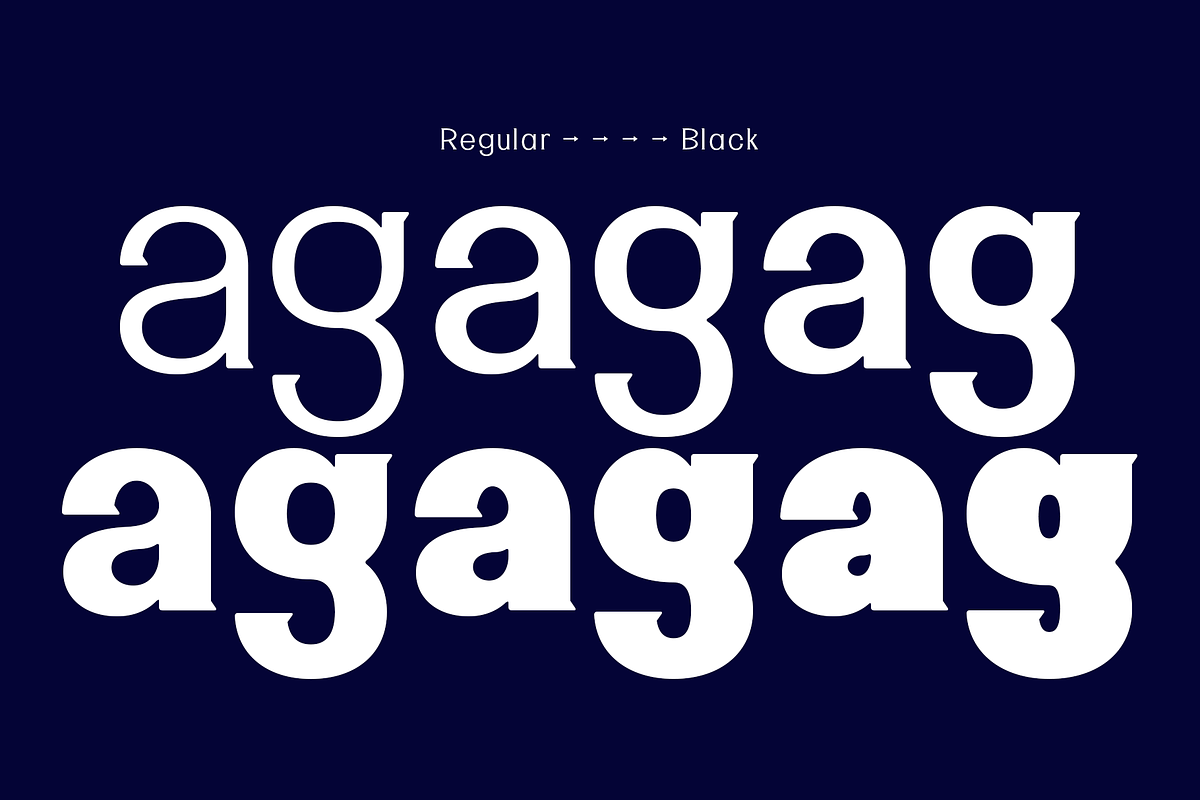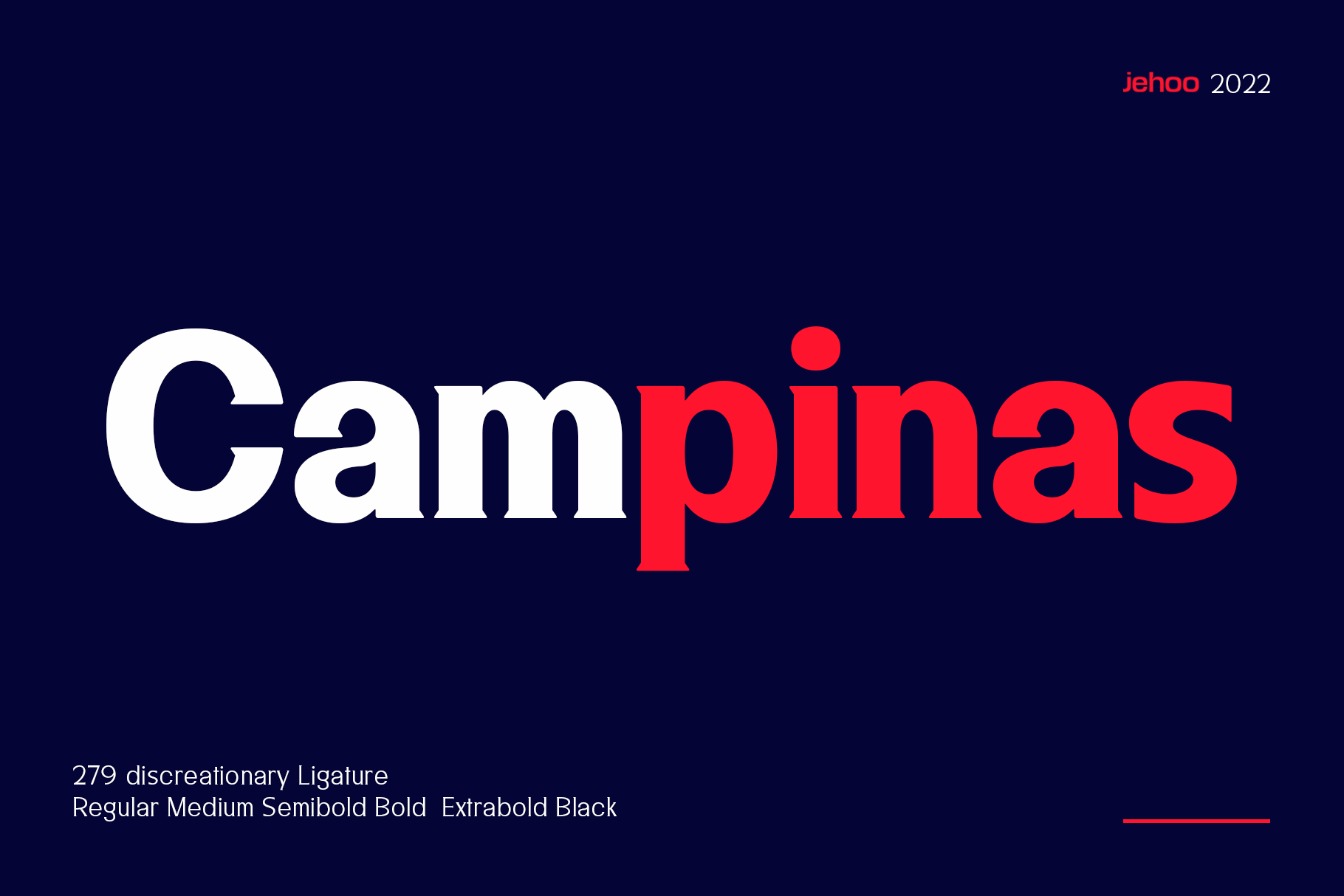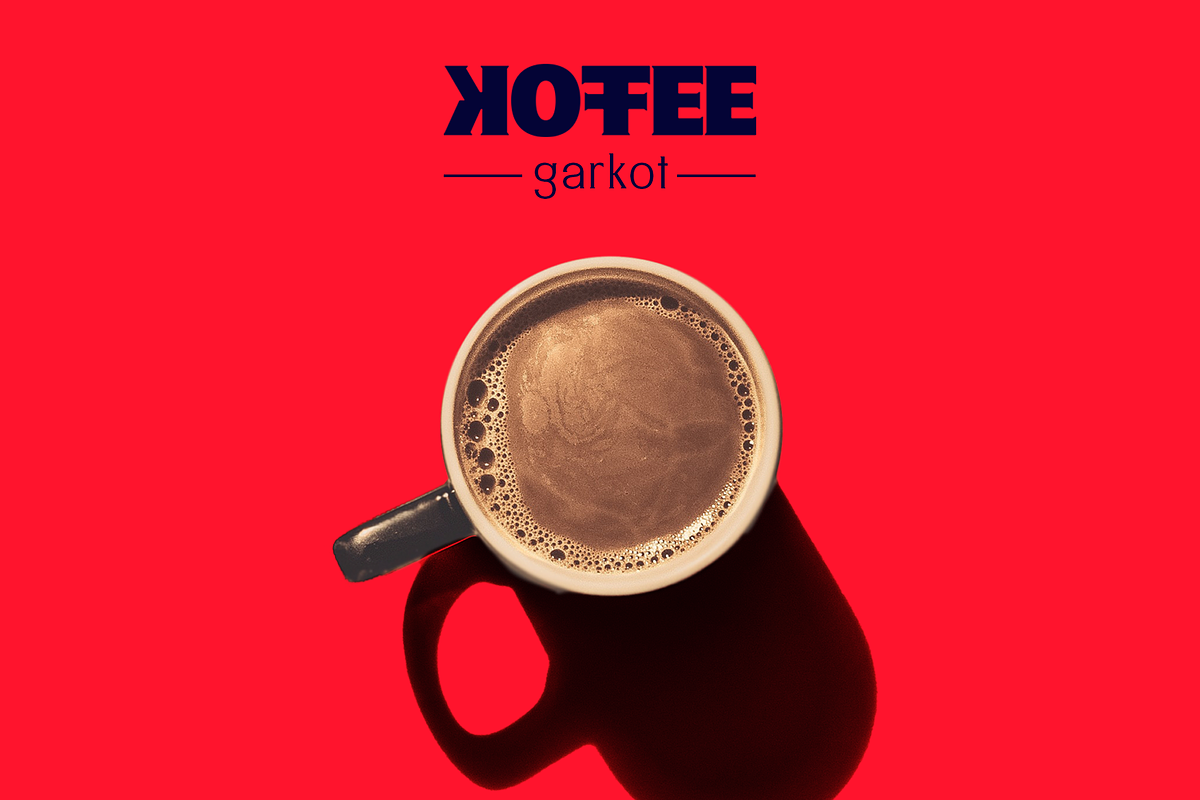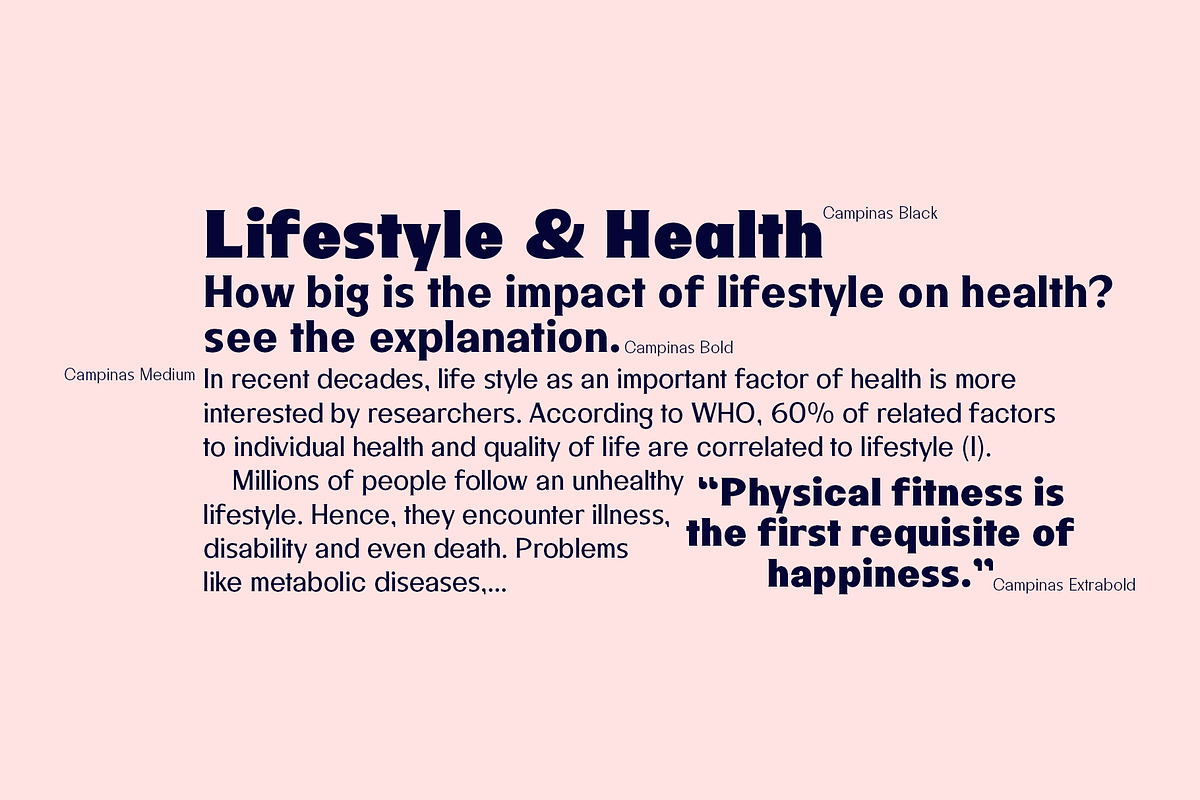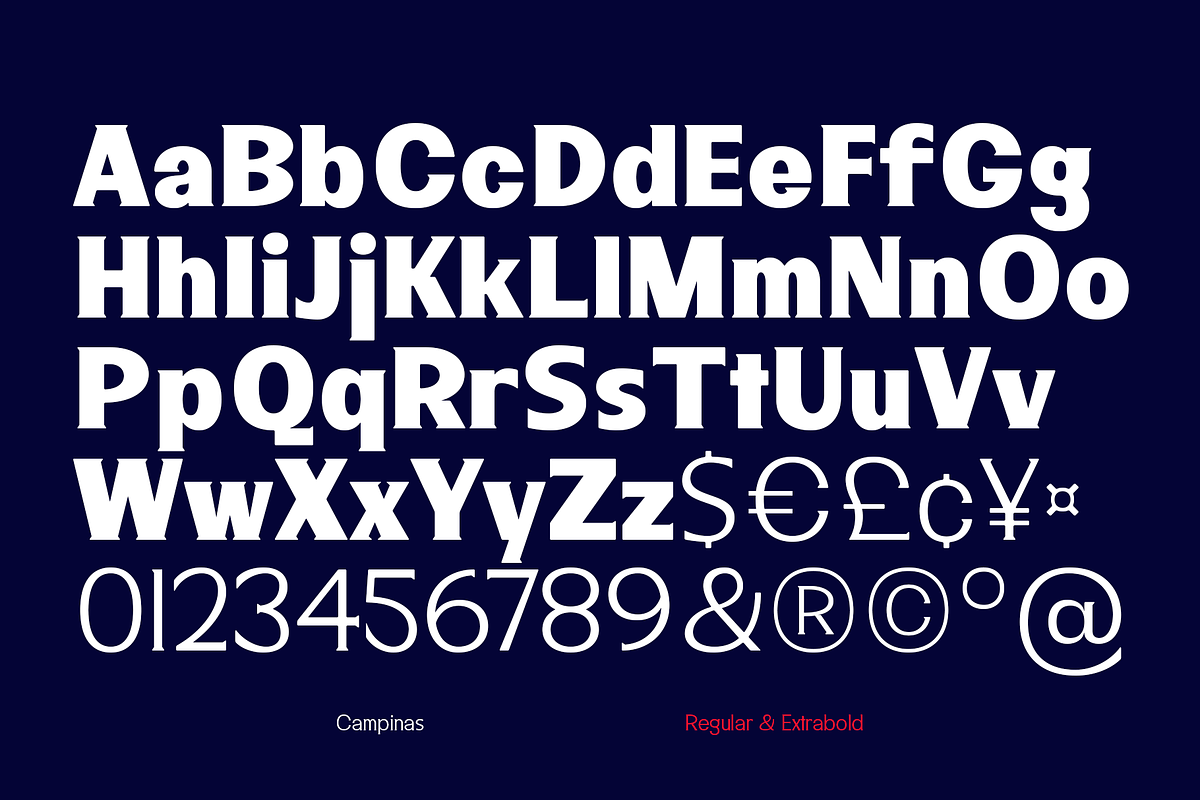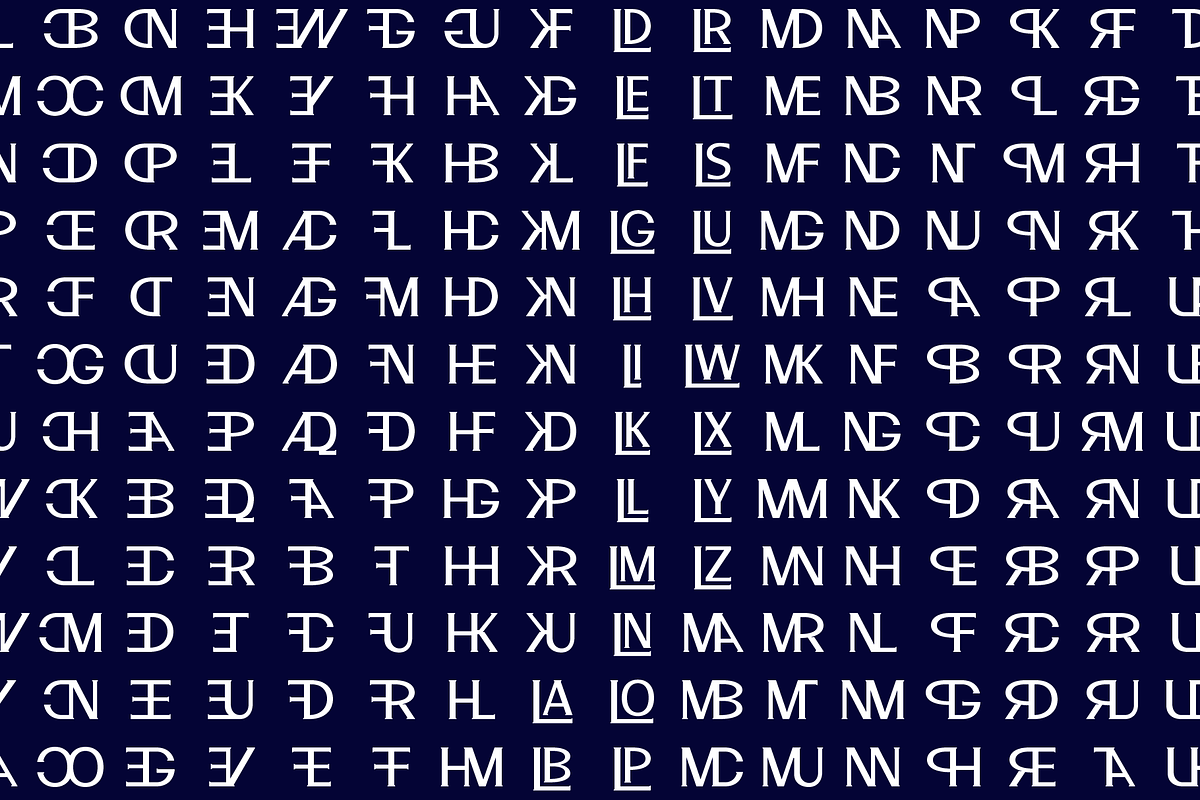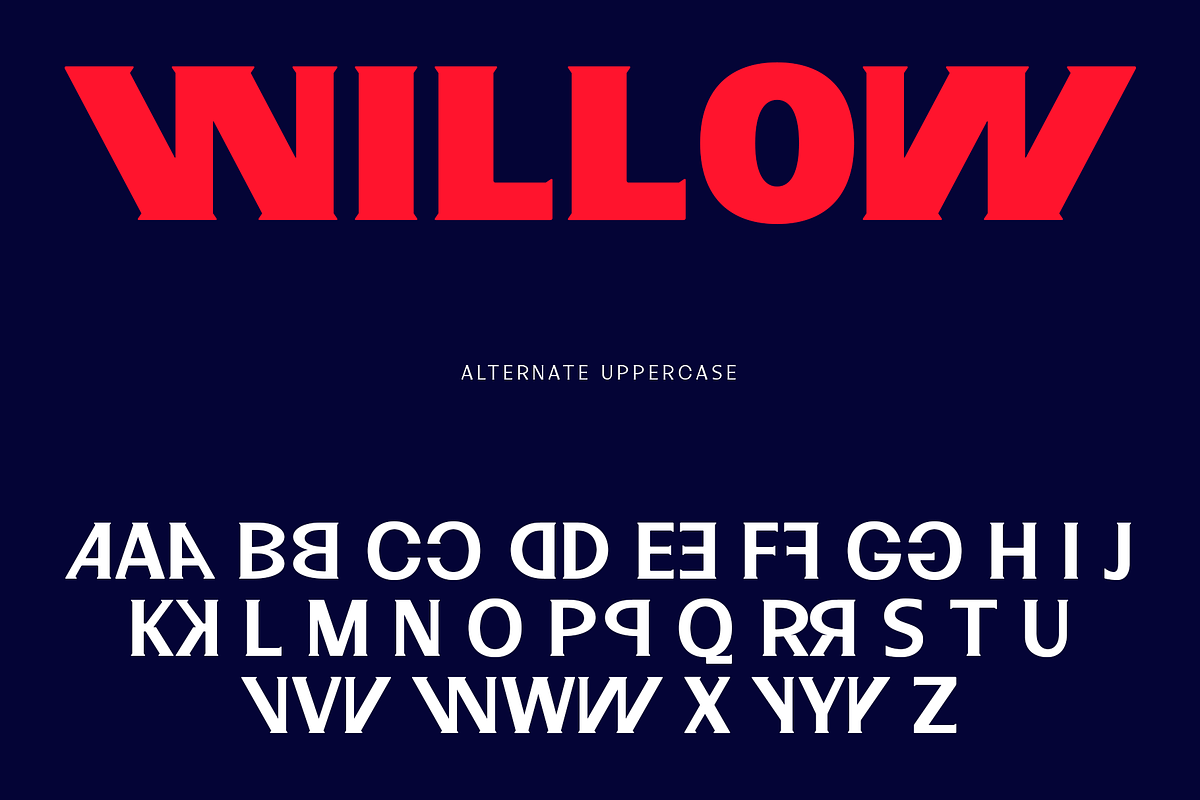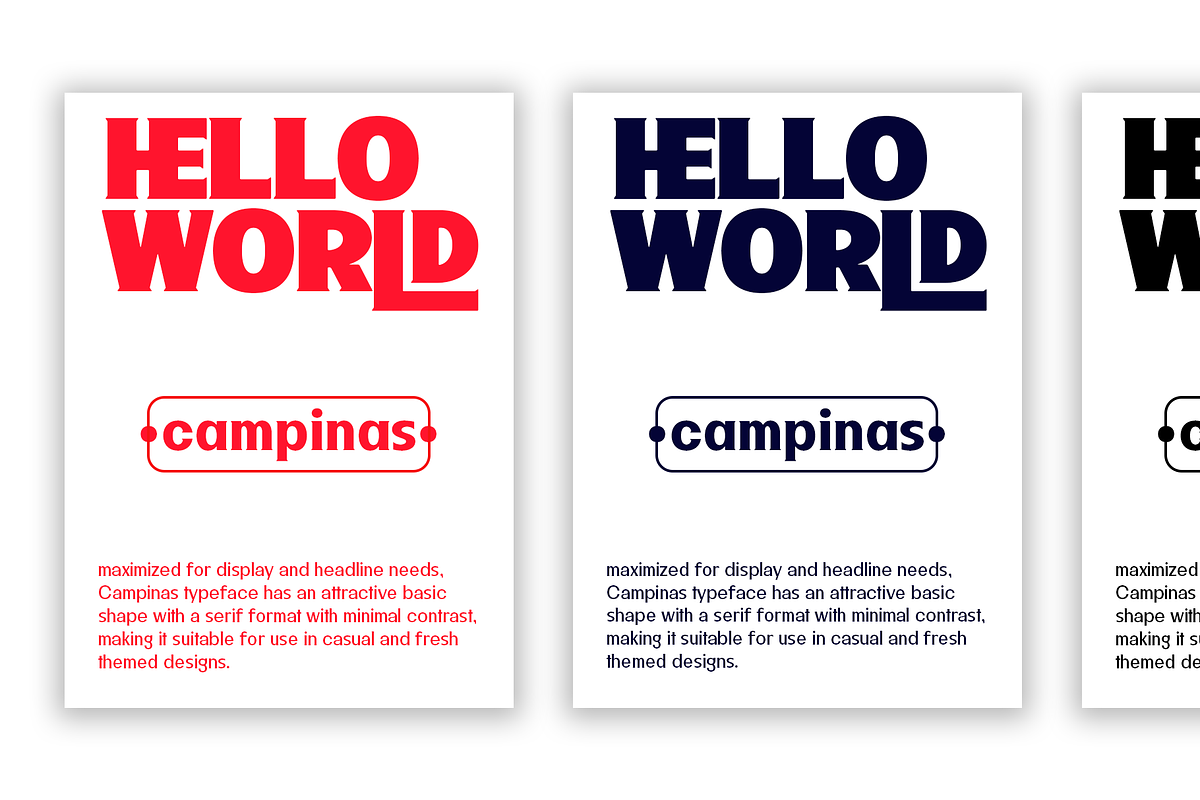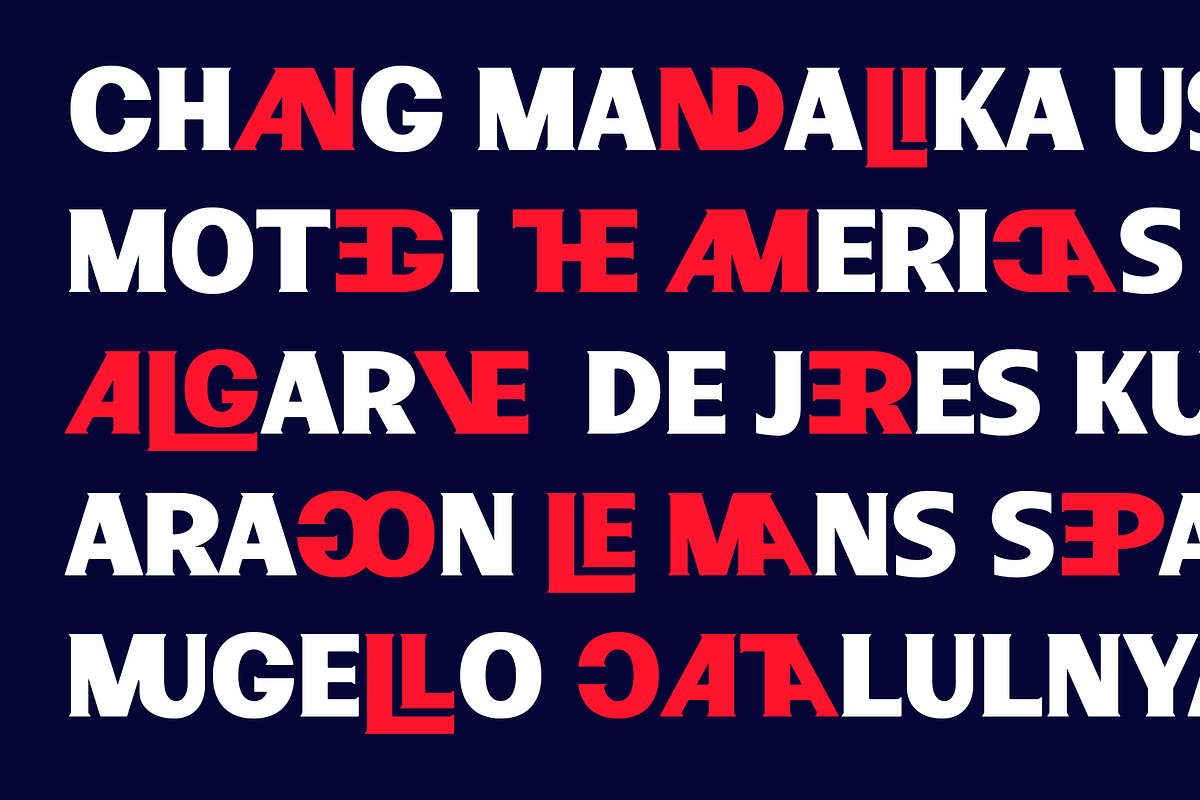
Campinas Typefamily
Has a serif foundation shape with minimal contrast. Campinas is designed to carry an expressive and engaging character making this font very suitable for casual and fun themed designs. With a complete set of discretionary ligatures and a complete set of alternates on the uppercase further confirms that Campinas is indeed made to attract people's attention, equipped with various weights ranging from regular to bold and decorative black. This font is very well used for design needs including Posters, Logos, Branding, Magazines, Album Covers, Web UI, Clothing, Social Media Posts, and various other applied designs.
Campinas has supported multilingual support for most of Europe, each containing more than 700 glyphs in it.